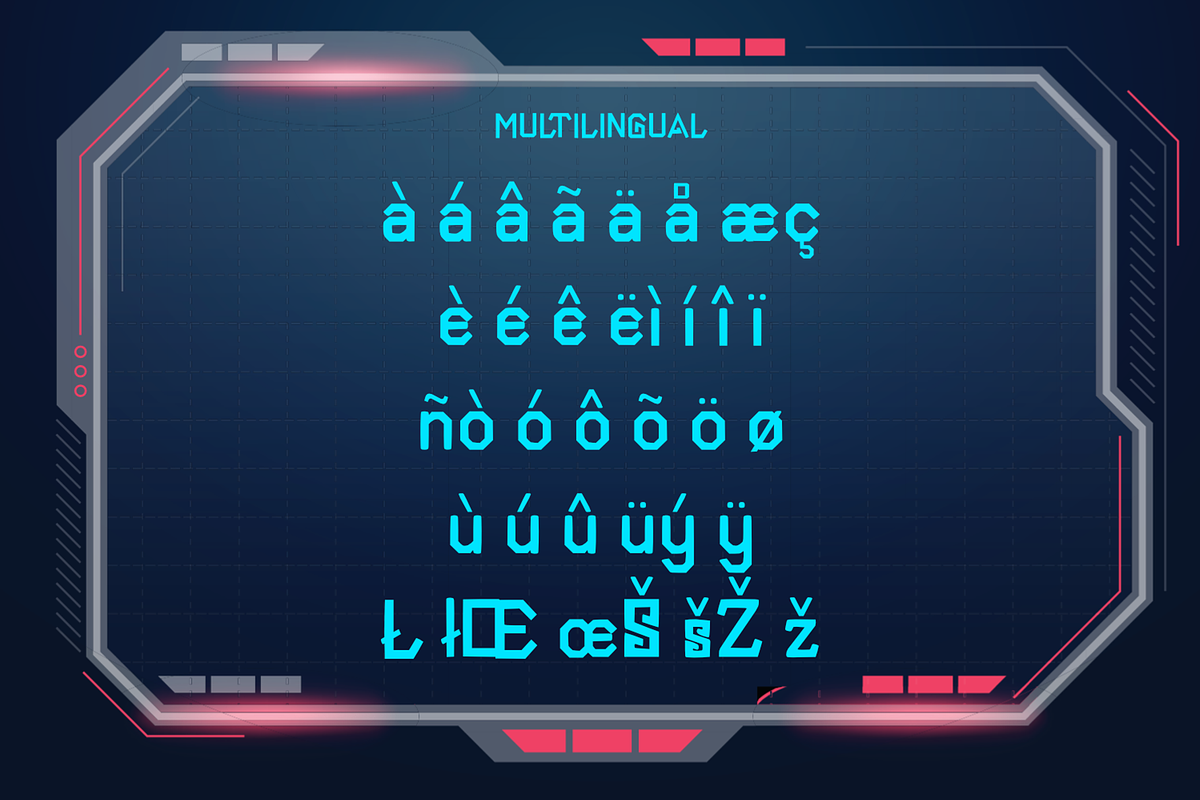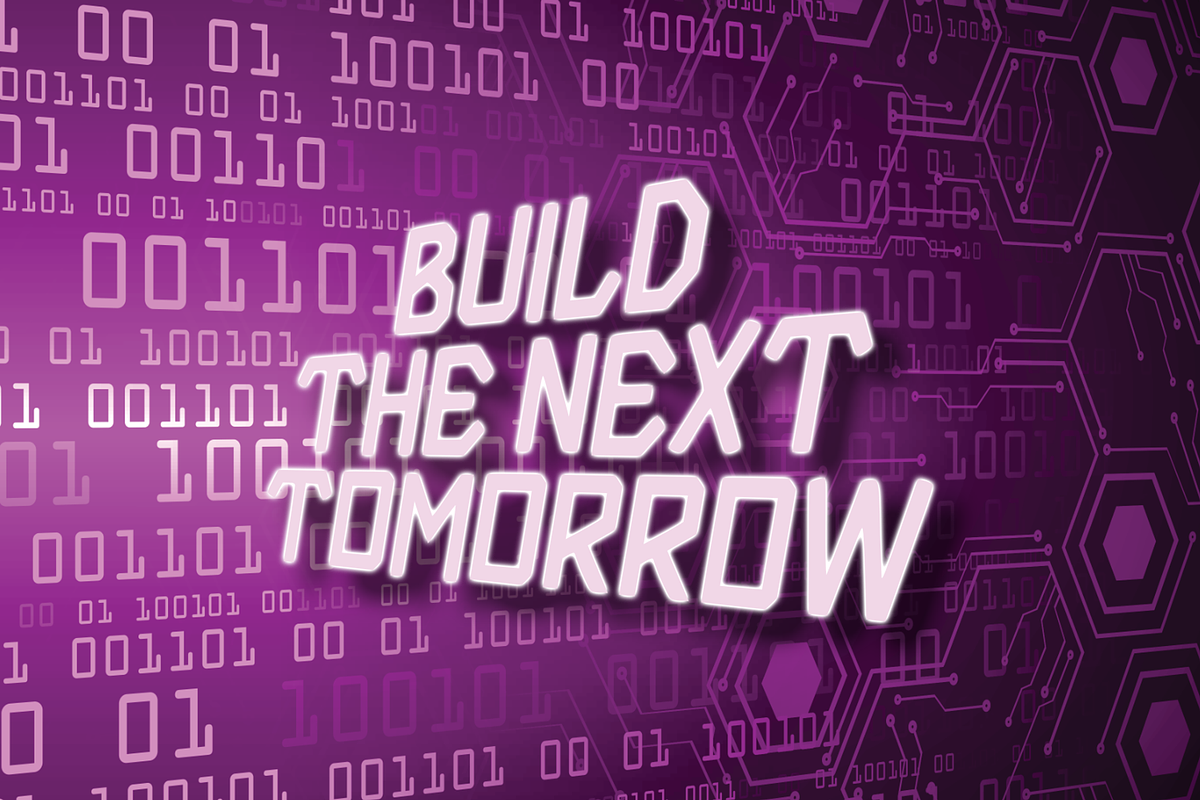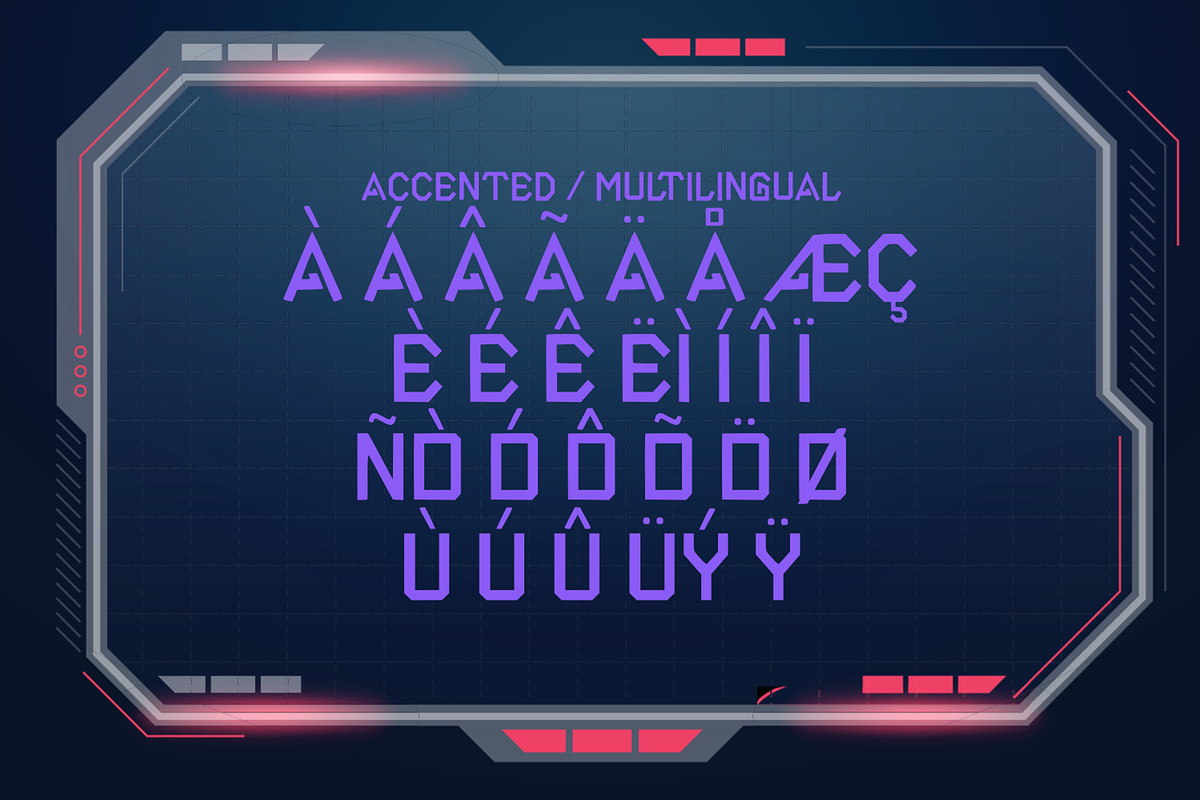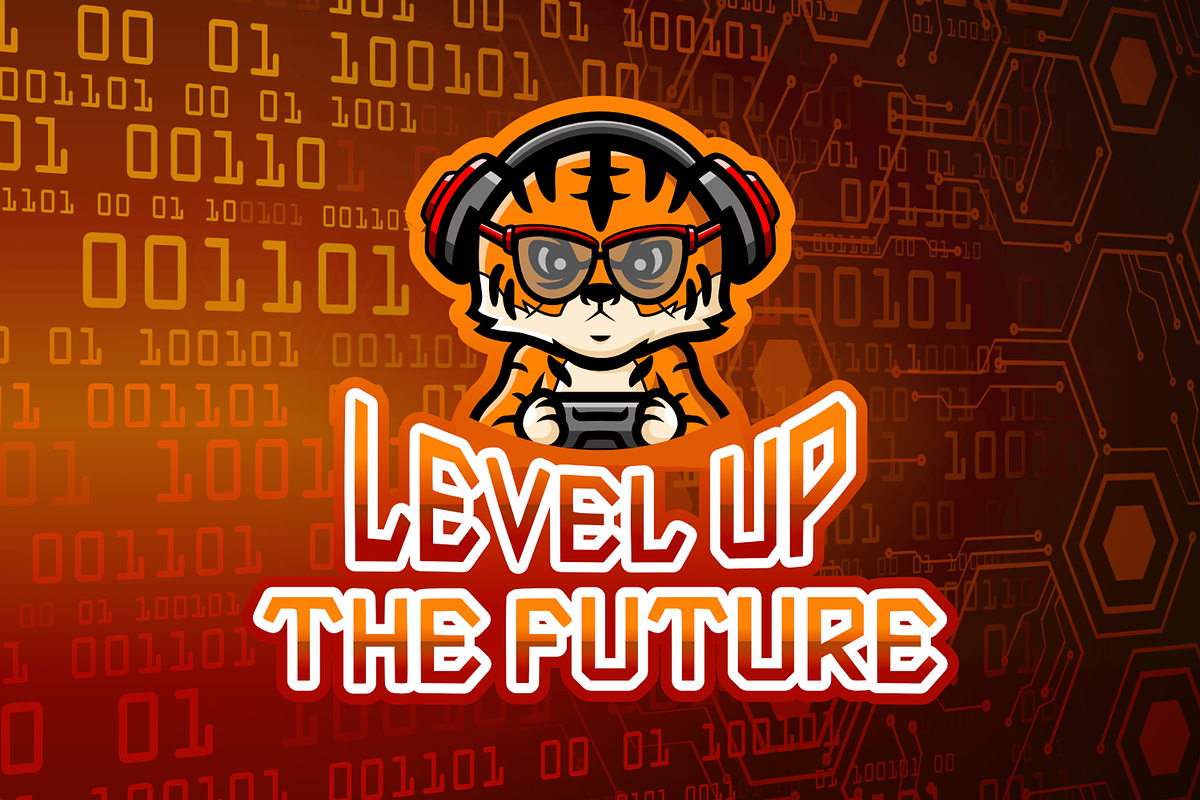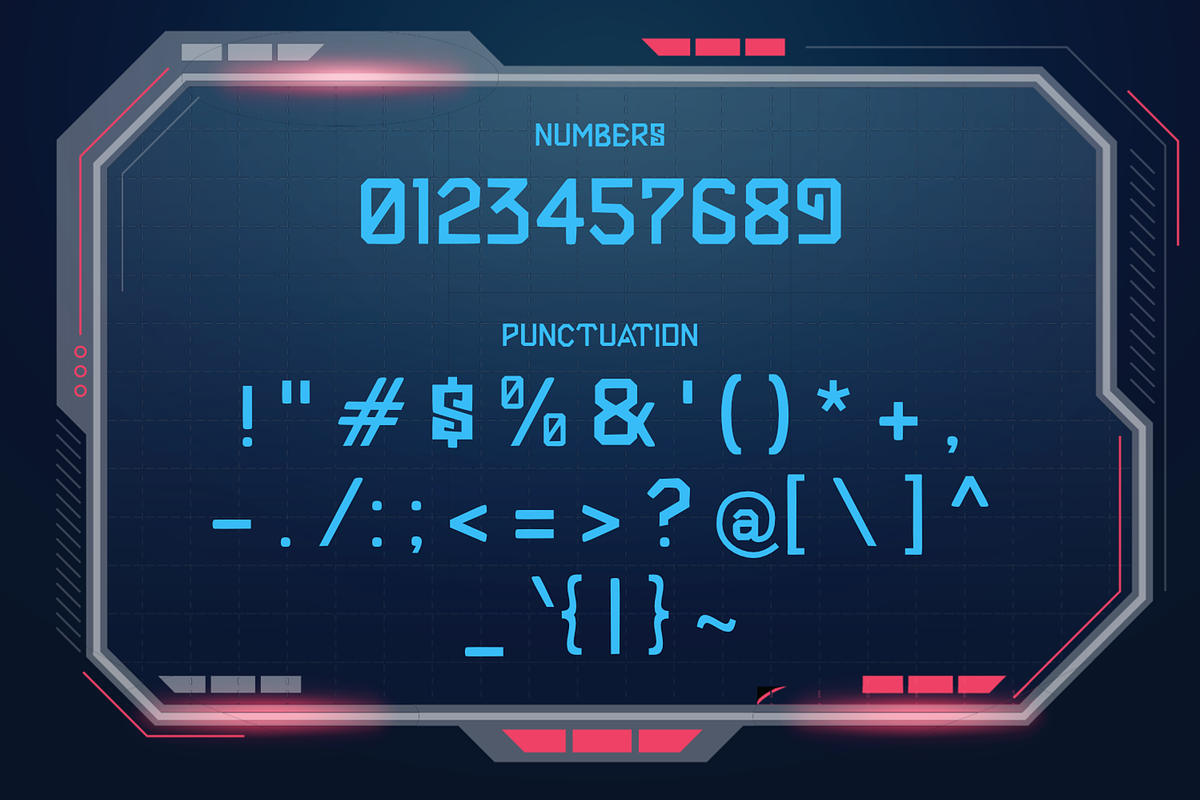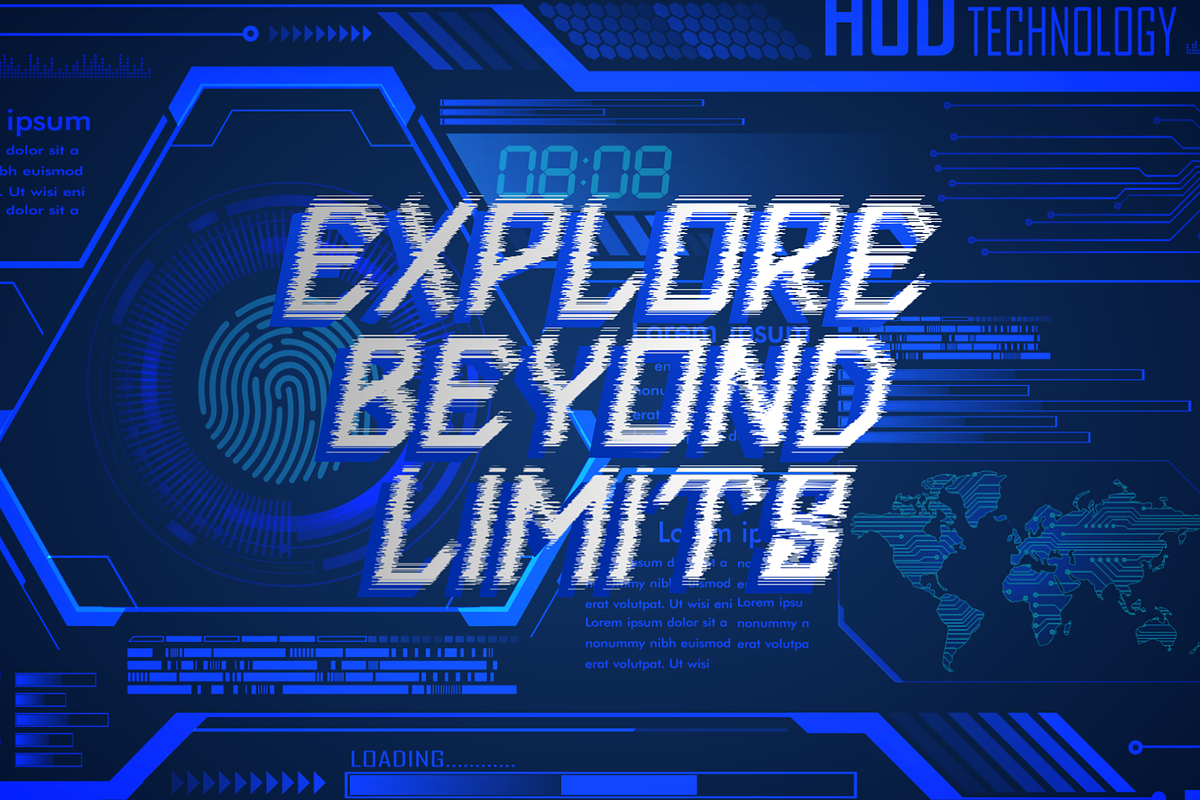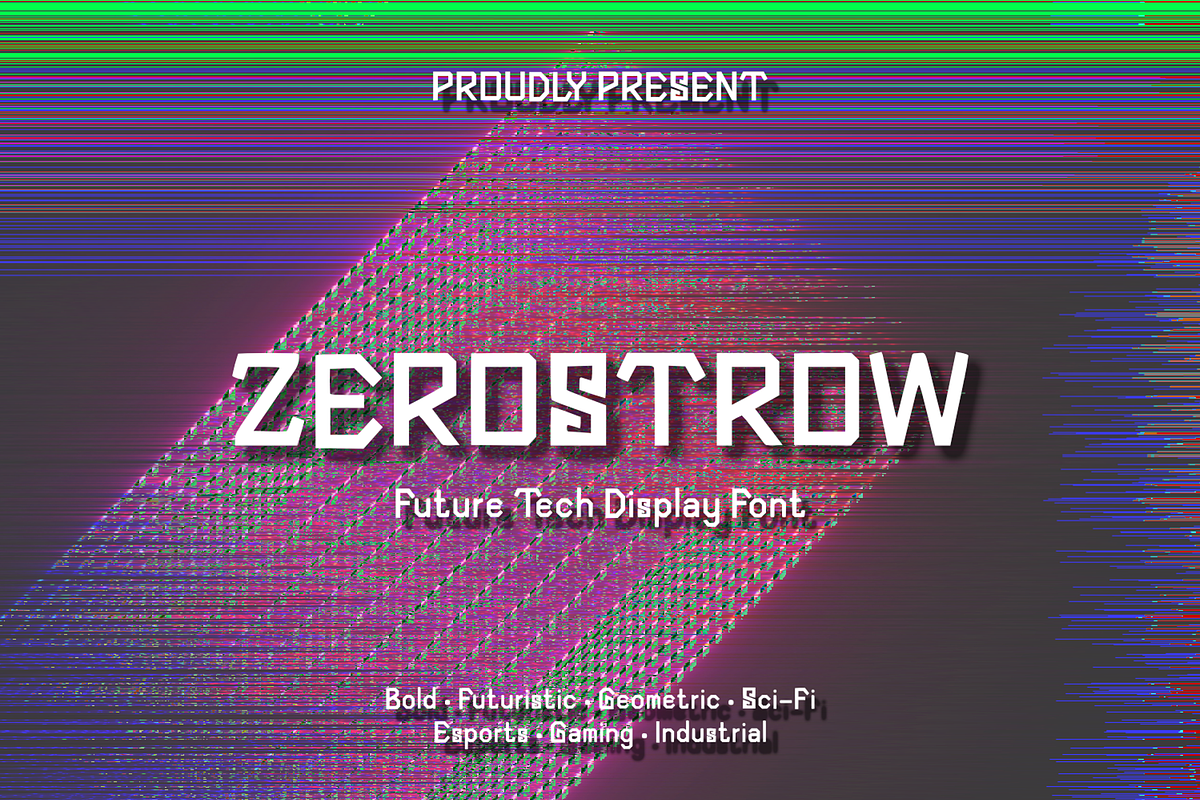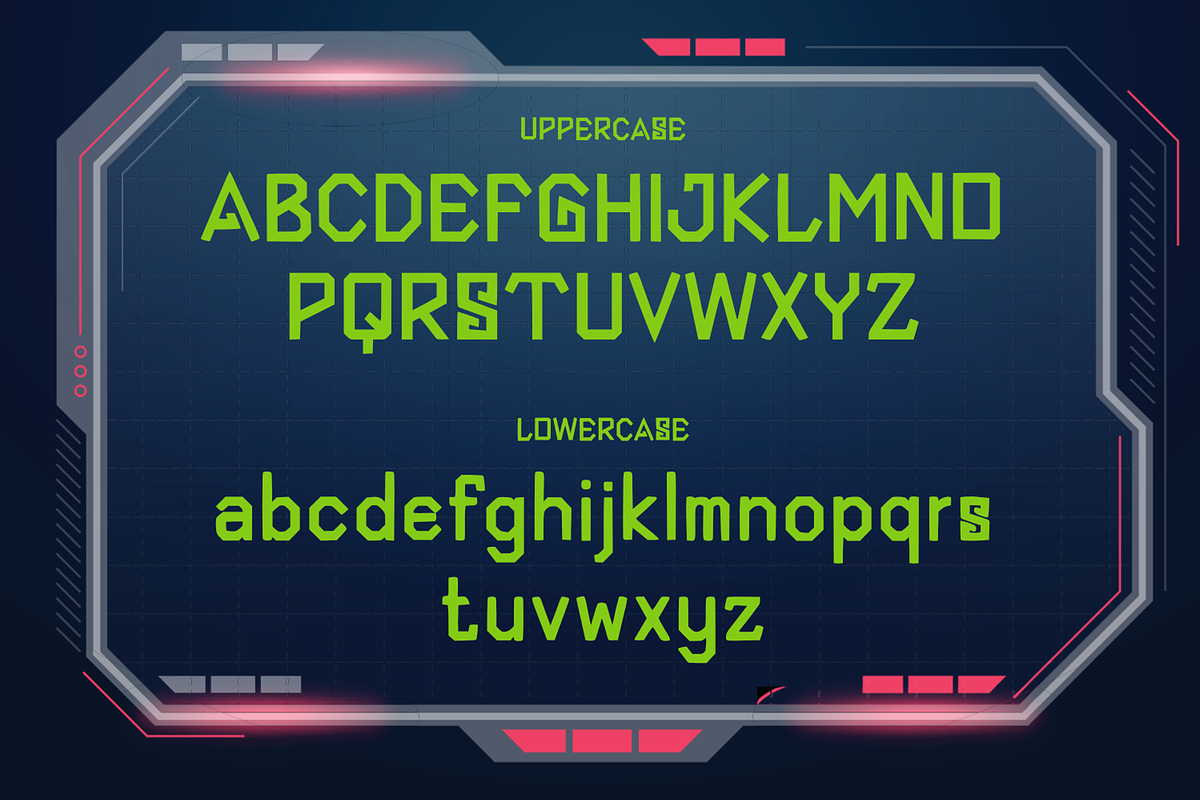
Zerostrow Futuristic Display
ZEROSTROW is a bold futuristic display font inspired by cyber technology, sci-fi aesthetics, and modern gaming culture. Featuring sharp geometric edges and clean angular cuts, it delivers a powerful, high-tech appearance that instantly grabs attention. Perfect for esports logos, gaming titles, movie posters, tech branding, futuristic packaging, user interfaces, apparel, and digital projects, ZEROSTROW combines a strong industrial style with excellent readability. Its unique letterforms make it an ideal choice for designers looking to create striking visuals with a modern, innovative, and cutting-edge personality.